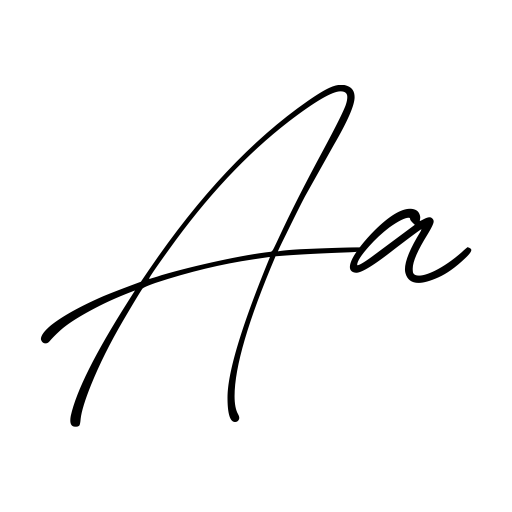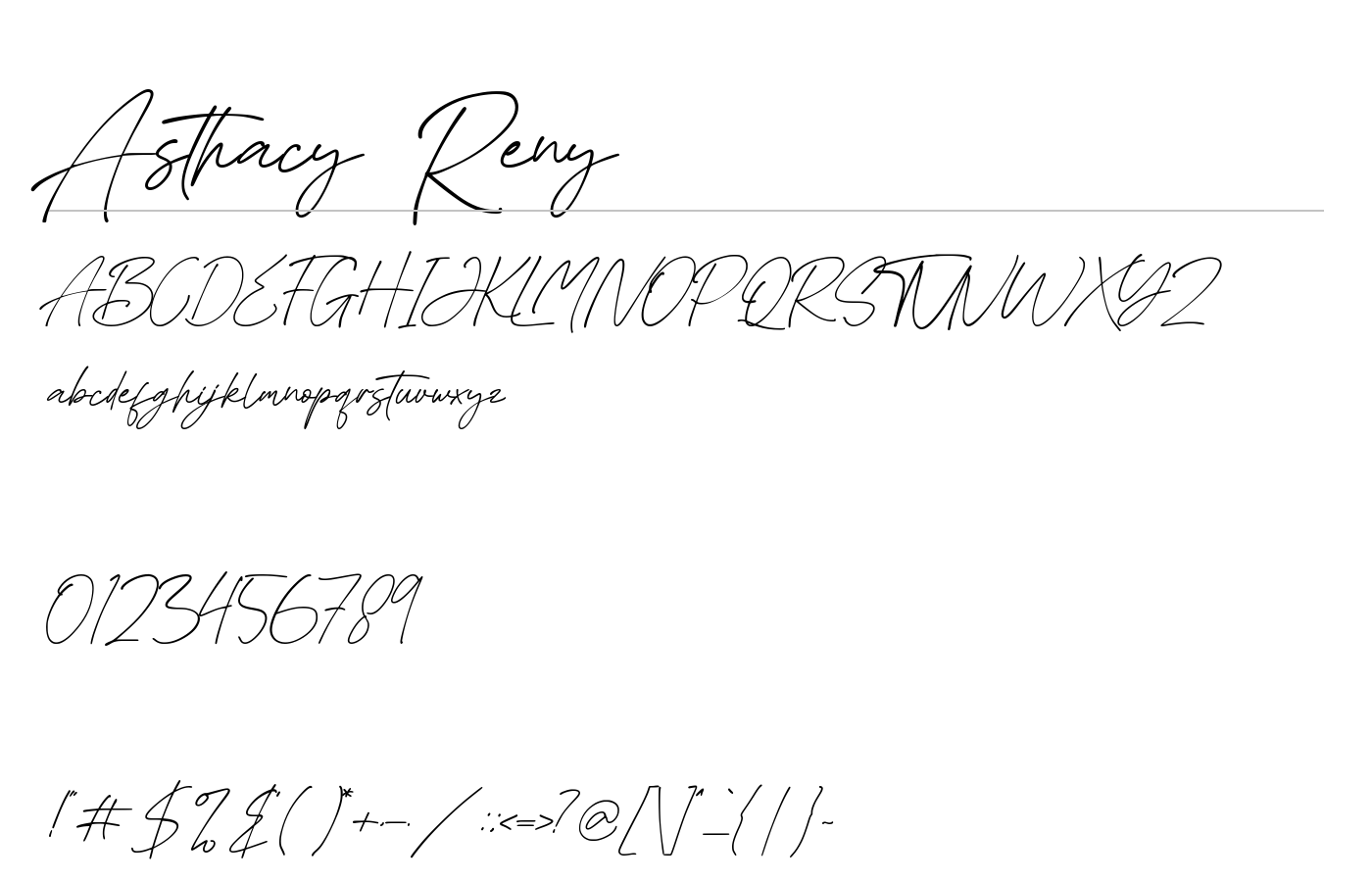
Asthacy Reny is a delicate, handwritten script font characterized by its thin, elegant strokes and high contrast in line weight. Its flowing, cursive letterforms create a sophisticated yet personal feel, making it perfect for stylish branding, wedding invitations, and feminine editorial designs. This font’s airy, graceful style works beautifully where a touch of refined elegance and creativity is needed.
Asthacy Reny Font
About Asthacy Reny Font